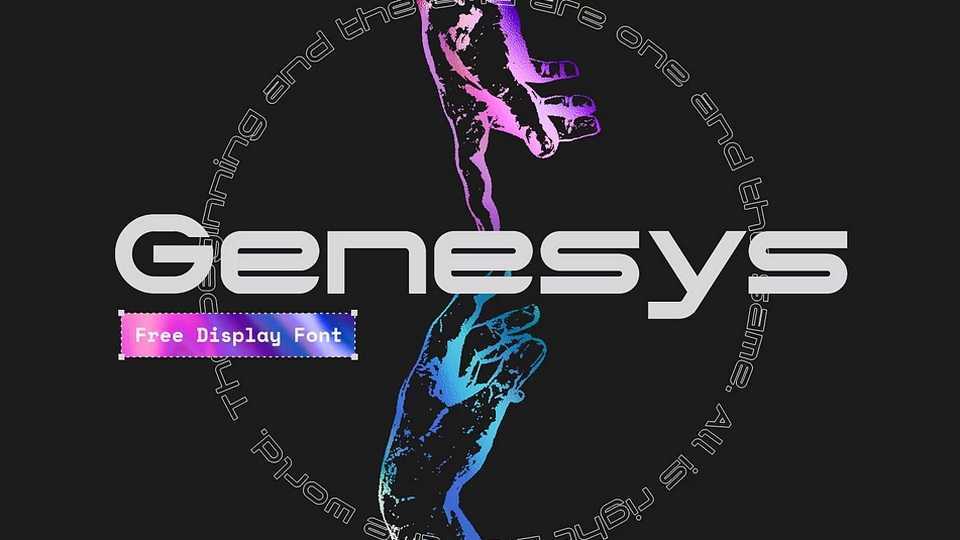
Download Genesys font, a bold futuristic display typeface inspired by media set in the future such as Blade Runner and Neon Genesis Evangelion.
Designer: Willem Dimas